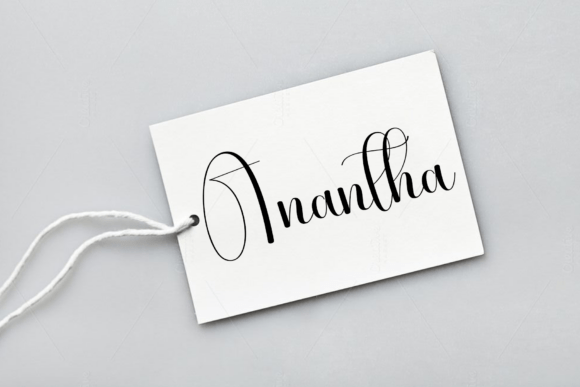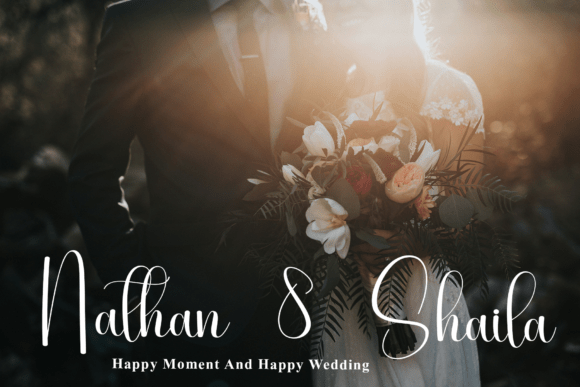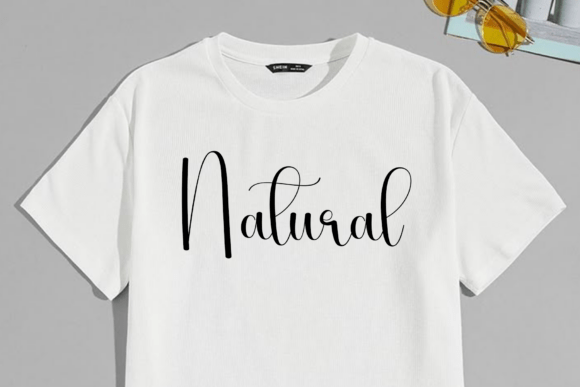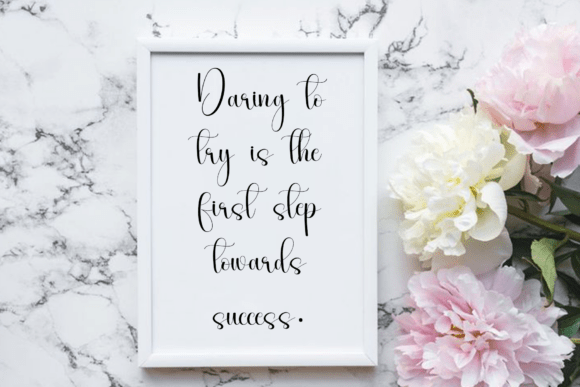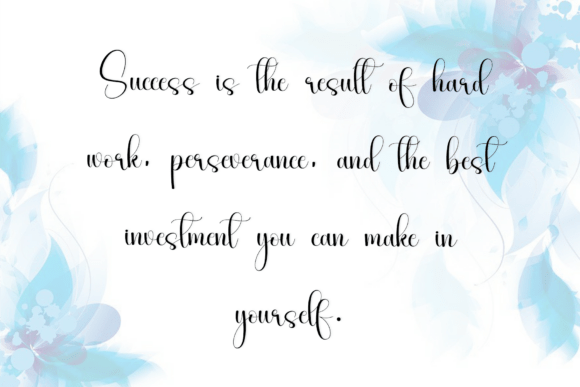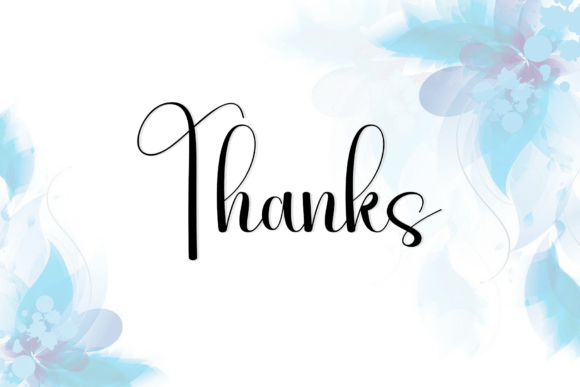
The Perfect Signature: Unveiling the Autographia Font
Have you ever been captivated by the elegance of a handwritten signature? The way it effortlessly combines fluid motion with deliberate precision, creating an unmistakable sense of personality? For designers, capturing this essence in a digital format can be a challenge, but what if you could bottle the essence of a perfect signature and use it to elevate your designs?
Enter the Autographia Font, a “new style” handwritten script font that embodies modern elegance. This beautiful font features a delicate balance of tall ascenders and sweeping loops, creating a sophisticated visual flow that’s perfect for luxury branding, signature logos, and high-end editorial content. Whether you’re looking to add a touch of class to your wedding stationery or want to create a stunning logo, the Autographia Font is an invaluable asset for designers.
Autographia Font Key Features
- Font Family: Autographia Font is a modern script font with a unique, handwritten feel.
- Character Count: The font contains over 500 glyphs, including uppercase and lowercase letters, punctuation, and symbols.
- Size: The font size range is from 8pt to 120pt, making it suitable for various design applications.
- Unique Characteristics: Autographia Font features a distinctive, cursive style with varying line widths and subtle flourishes, giving it a personal and elegant touch.
Designer Review: Autographia Font
As a designer, I was excited to explore the Autographia Font, a script font that promises to deliver elegant and sophisticated results. Here’s my honest review.
- The Autographia Font is indeed elegant and sophisticated, making it perfect for high-end branding, wedding invitations, and other special occasions.
- The font’s flow is smooth and natural, with a subtle flair that adds to its charm.
- The font’s scalability is impressive, looking great in both small and large sizes.
- The Autographia Font is a bit too ornate for everyday use, which may make it difficult to read in long blocks of text.
- The font’s complexity can also make it challenging to pair with other fonts.
- Additionally, the font may not be suitable for digital use, as it can appear pixelated in certain situations.
Overall, the Autographia Font is a beautiful and elegant script font that excels in certain situations. While it may have some limitations, it’s a great choice for designers looking to add a touch of sophistication to their projects. Just be mindful of its potential drawbacks, and use it wisely.
For a more authentic look, pair Autographia with a high-contrast background and bold text.
For a more realistic effect, experiment with layer blending modes and opacity settings.
For a more polished look, use Autographia in combination with other elegant fonts.
Autographia Font is ideal for:
1. Formal invitations and announcements.
2. Luxury branding and packaging.
3. High-end stationery and business cards.
Remember to use Autographia sparingly to avoid overwhelming the design.